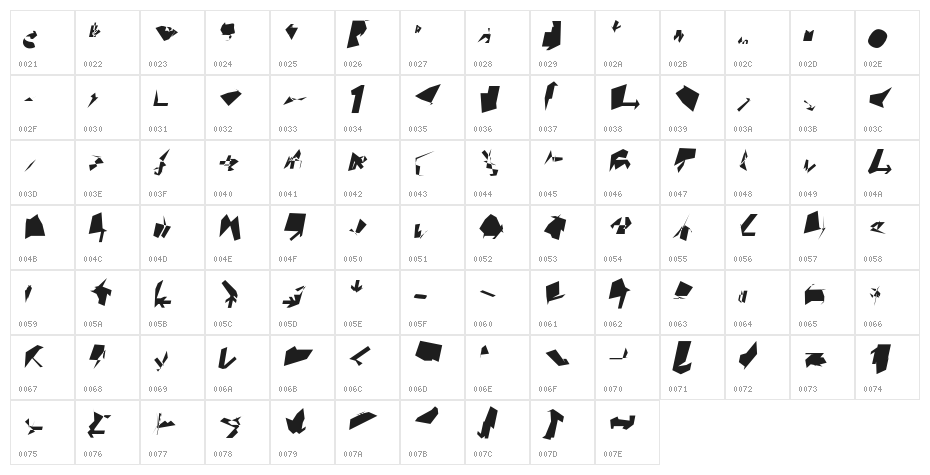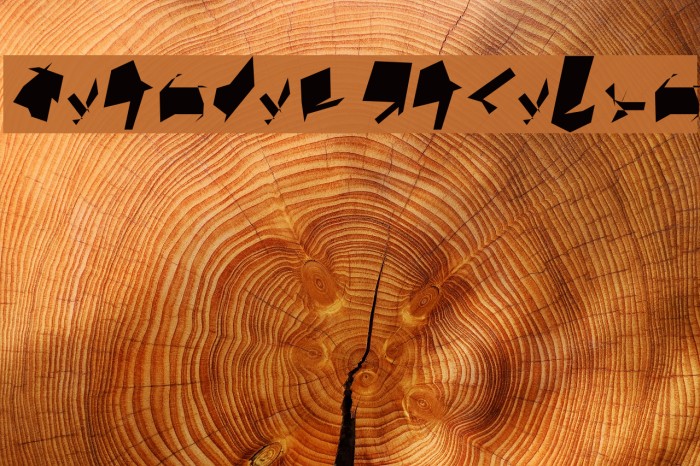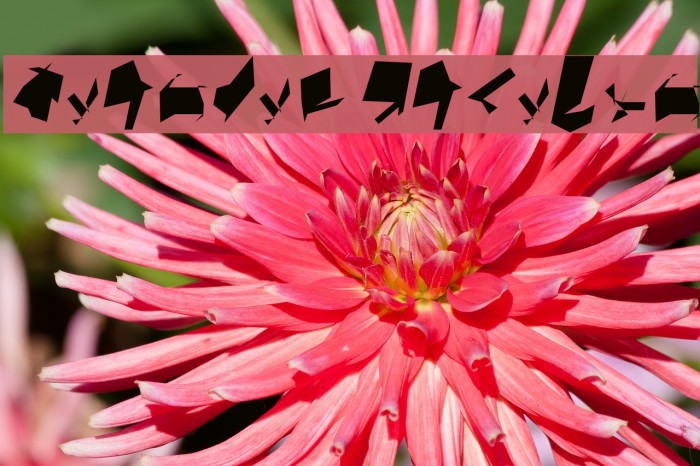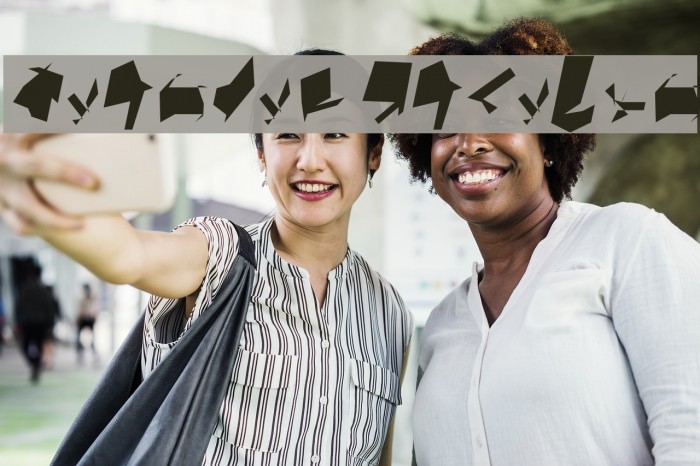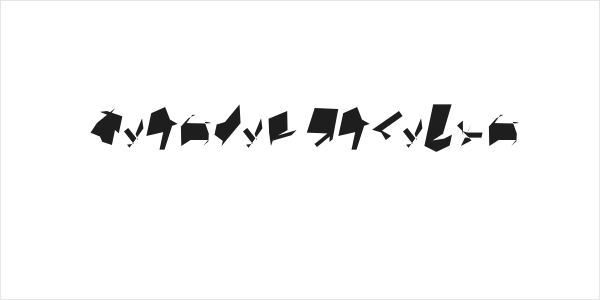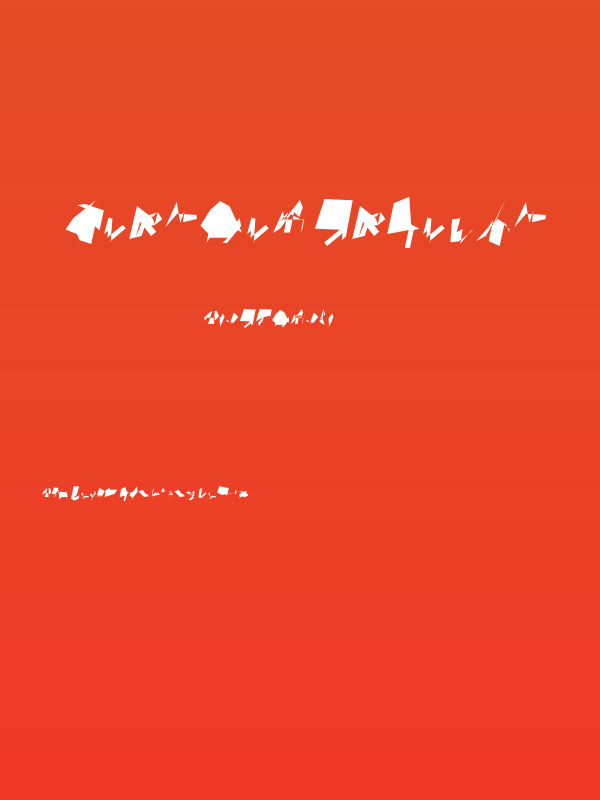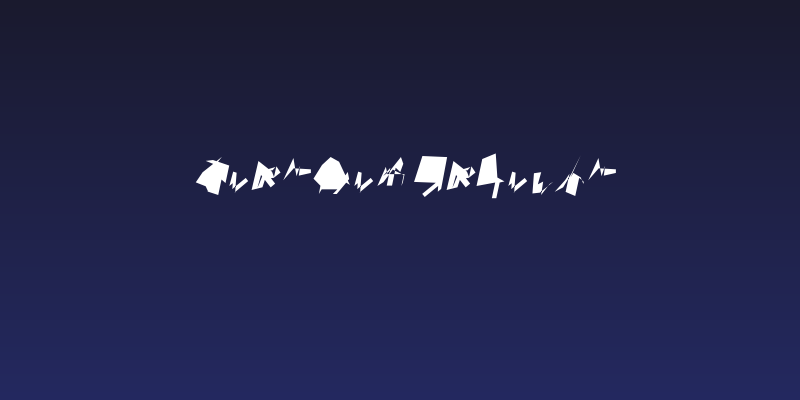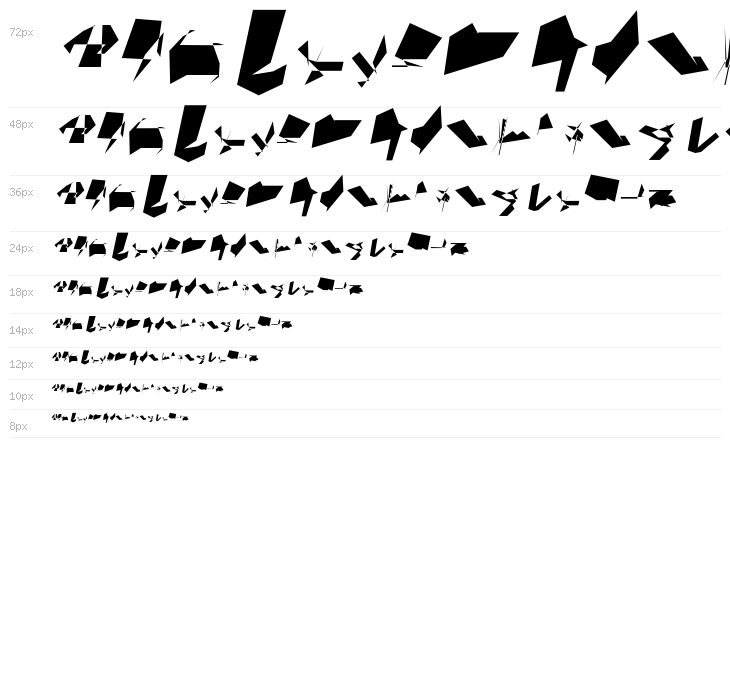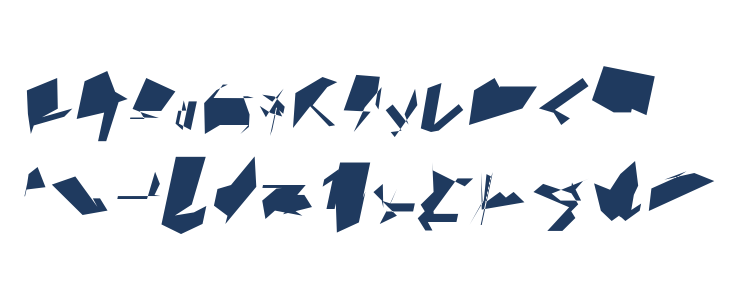
Siberia Oblique Font
Siberia Oblique Description
This font features a highly abstract and fragmented design, characterized by sharp angles and irregular shapes. Each character appears as a unique geometric composition, creating a sense of dynamic movement and energy. The letters are bold and striking, with a jagged, almost chaotic appearance that challenges traditional readability. Despite its unconventional style, the font maintains a consistent visual theme across all characters, making it suitable for projects that require a strong visual impact. The overall aesthetic is modern and avant-garde, appealing to those looking for a distinctive and artistic typeface.
| Overall Style | Modern, Avant-garde |
| Use Case | Logos, Posters, Artistic Titles |
| Proposed Projects | Ideal for modern art projects, edgy branding, album covers, and experimental design work. |